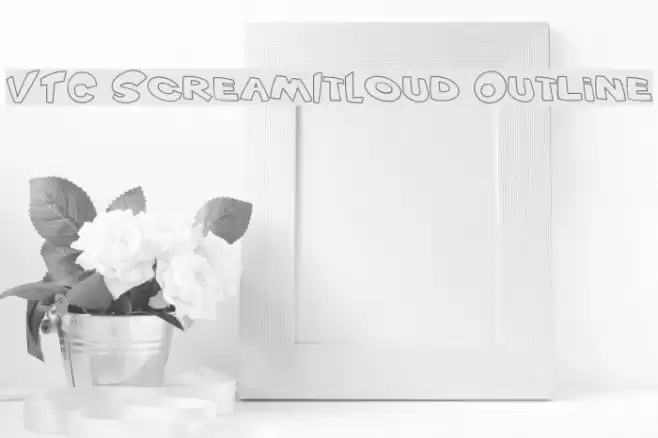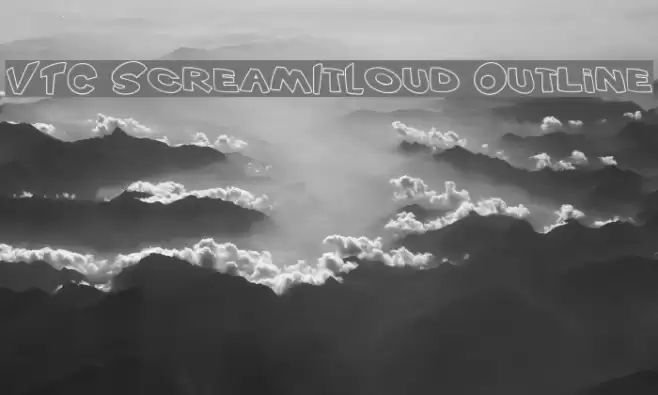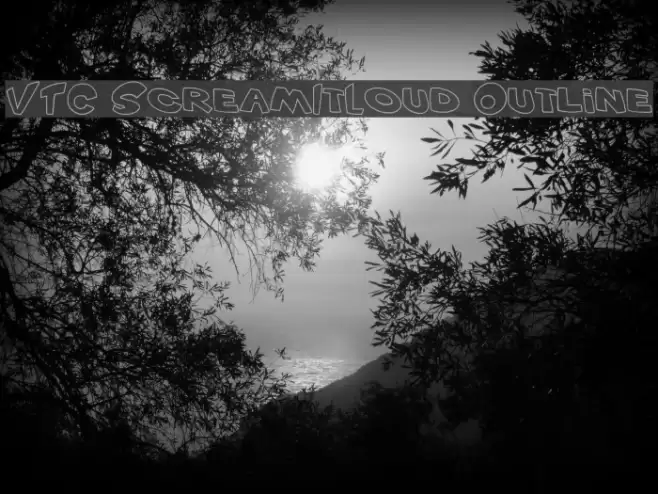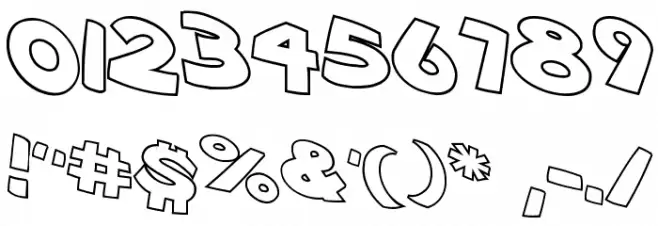
VTC ScreamItLoud Outline Font
VTC ScreamItLoud Outline Description
This font features a bold and playful outline style, characterized by thick, exaggerated strokes that create a sense of energy and movement. The letters have a cartoonish, hand-drawn appearance, with irregular shapes and sizes that add to its whimsical charm. The uppercase and lowercase letters maintain a consistent style, while the numbers and special characters are equally bold and dynamic. This font is designed to stand out, making it ideal for eye-catching headlines and creative projects.
A bold, playful outline font with a cartoonish, hand-drawn style from Uncategorized fonts.
- Proposed Projects: Ideal for comic books, children's books, posters, and playful branding projects.
- Overall Style: Playful, Cartoonish, Energetic